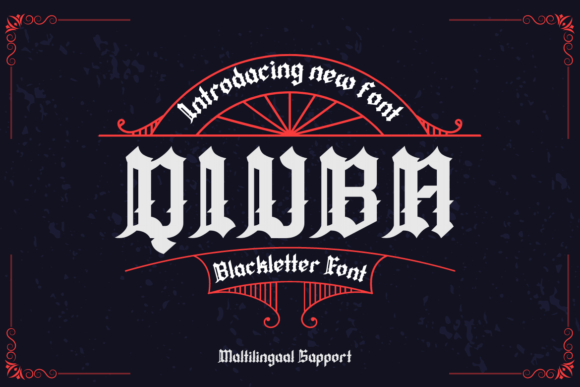
In a world saturated with monotonous fonts, Qiuba emerges as a beacon of individuality and creativity. Picture this: The striking blackletter strokes dance across your screen, captivating your senses and igniting your imagination. Qiuba is not just a font; it's an artistic gateway to a bygone era, where Gothic grandeur and modern elegance converge in perfect harmony.
Whether you're conjuring up captivating music covers, designing vintage-inspired labels, or crafting eye-catching badges, Qiuba stands as your steadfast companion. Its versatility knows no bounds, effortlessly adapting to a multitude of projects, each infused with a touch of Gothic charm. Unleash your inner artist and let Qiuba transform your designs into masterpieces that resonate with timeless appeal.
Dive into the depths of Qiuba's diverse forms, each a symphony of harmonious curves and sharp angles. Choose from a captivating array of variations, each meticulously crafted to evoke a distinct emotion, convey a unique message, and leave an unforgettable impact. With Qiuba at your fingertips, the perfect words find their perfect form, harmonizing seamlessly to create a visual masterpiece.